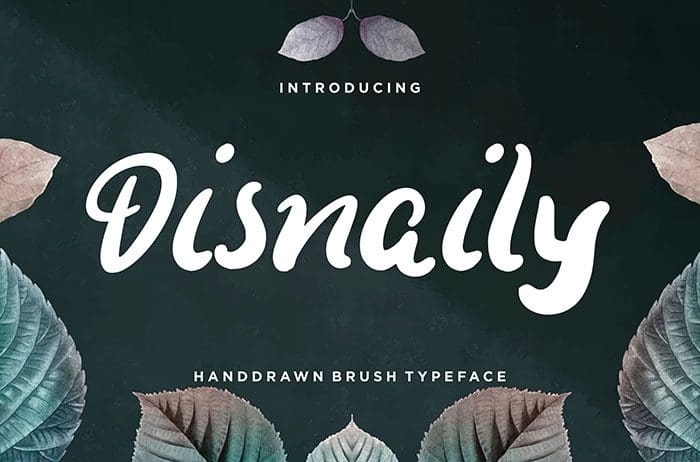
Disnaily Display Font
Disnaily is a fun display font with a brush-style will look happy, playful, and fancy. Disnaily is perfect for branding projects, logo, wedding designs, and more. Thanks to Creatype Studio for sharing this font! Take a look at this portfolio for more of his stunning fonts.